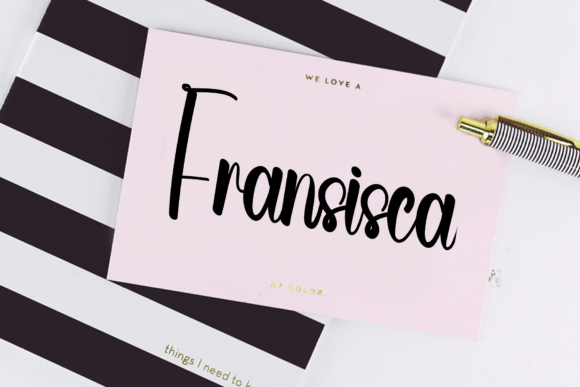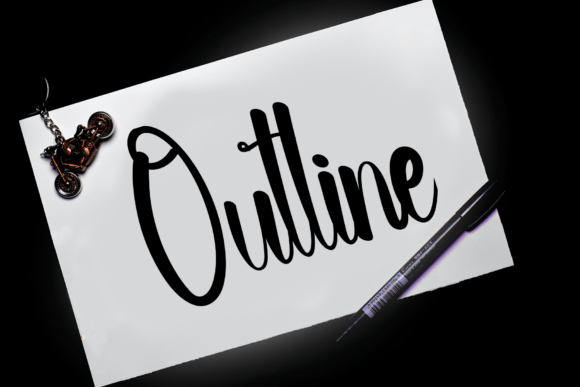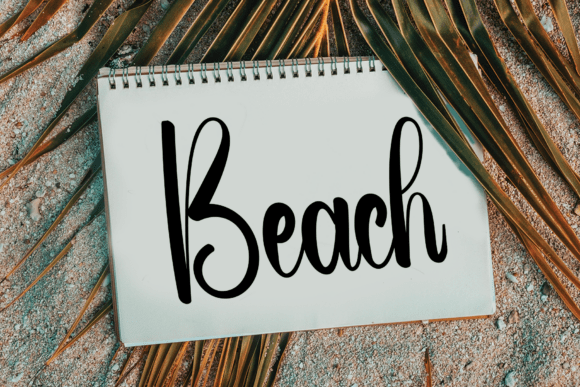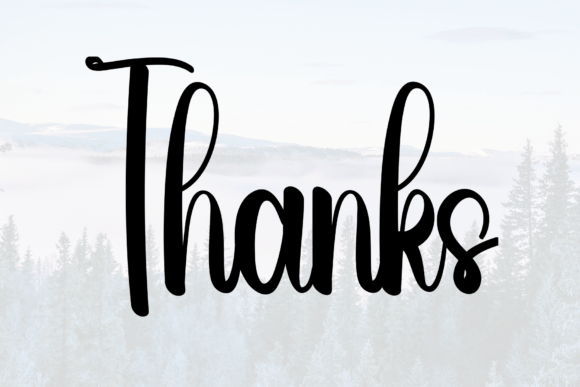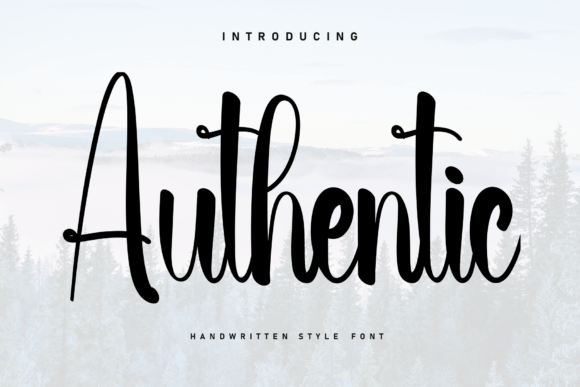
The Quest for the Perfect Font: Discovering Authentic
I still remember the design project that led me to Authentic, a sweet and beautiful handwritten font. I was working on a cozy home decor branding project, and my client specifically asked for a font that would evoke a sense of warmth and comfort. I scoured the internet, tried out countless fonts, but nothing seemed quite right. That was until I stumbled upon Authentic. Its charming characters dancing along the baseline instantly won me over, and I knew I had found the perfect fit for my project.
An Honest Review of Authentic
- ✨ Sweet and Beautiful Handwriting: Authentic’s handwritten style is effortlessly charming, making it perfect for projects that require a personal touch.
- ✅ Cozy Accent: This font adds a warm and cozy accent to any design project, from branding to invitations and more.
- 💫 Highly Versatile: Authentic can be used for a wide range of design projects, from digital to print.
While Authentic is an amazing font, there are a few things to keep in mind:
- ⚠️ Limited Multilingual Support: Authentic’s character set is primarily focused on English and some European languages.
- 🤔 Some Characters May Require Manual Adjustment: Depending on the design and layout, some characters might require manual adjustment to ensure optimal spacing and alignment.
The Story Behind Authentic
Authentic was designed with the intention of creating a font that embodies warmth and sincerity. The designer aimed to craft a font that would feel approachable and friendly, perfect for designs that require a personal touch. Through careful attention to detail and a passion for typography, Authentic was born.
Q: What type of projects is Authentic best suited for?
A: Authentic is versatile and can be used for a wide range of projects, including branding, invitations, stationery, and more.
Q: Does Authentic support OpenType features?
A: Yes, Authentic supports OpenType features, including glyphs and stylistic alternates, which can enhance your design work.
Q: Is Authentic available in different weights or styles?
A: The standard version of Authentic may not have multiple weights or styles. However, some font families or variations might offer additional styles.